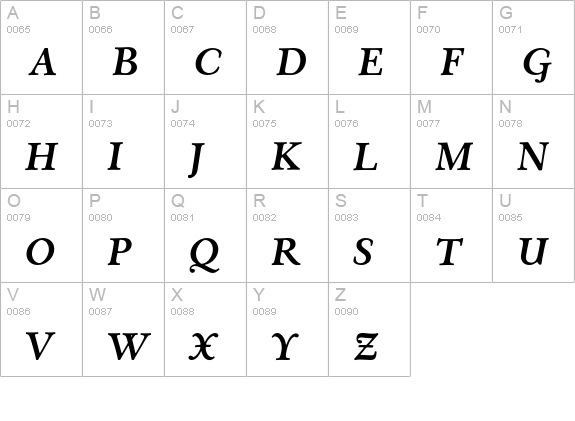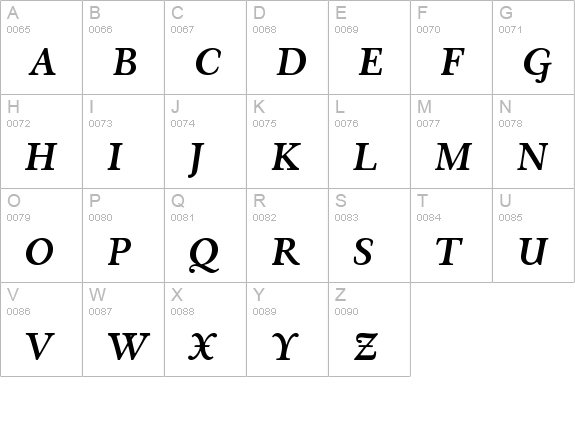
EldoradoText-BoldItalic is a striking and elegant font that exudes a sense of sophistication and style. Its bold and italic design adds a touch of flair to any project, making it perfect for headings, titles, and other attention-grabbing text. The unique combination of thick strokes and slanted angles gives this font a modern and edgy look that is sure to make a statement. What sets EldoradoText-BoldItalic apart is not only its eye-catching design but also the fact that it is available for free download at FontsMarket.com. This means that you can easily access this stylish font without any cost, making it a valuable addition to your font collection. Whether you're working on a design project, creating promotional materials, or simply looking to enhance your written content, EldoradoText-BoldItalic is a versatile and dynamic font that will help you achieve your desired aesthetic. Download it today and elevate your typography game with this captivating typeface.